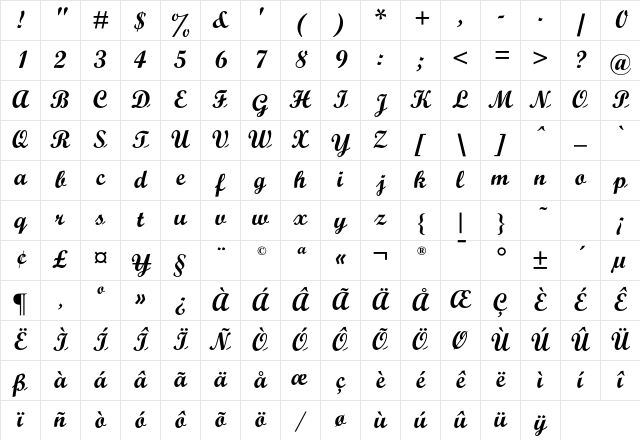
OPTIScript Bold Free Font
OPTIScript Bold
Design Context for OPTIScript
OPTIScript flows with the natural rhythm of handwritten lettering, making it ideal for designs that call for warmth and personal expression. Its bold stroke weight gives it real presence on the page.
Font Pairing: Combine OPTIScript with a simple geometric sans for maximum contrast - the tension between flowing curves and clean structure is a classic typographic pairing.
Pro Tip: Use OPTIScript for short runs of text - names, titles, or taglines. Extended body copy in script faces tires the eye quickly.